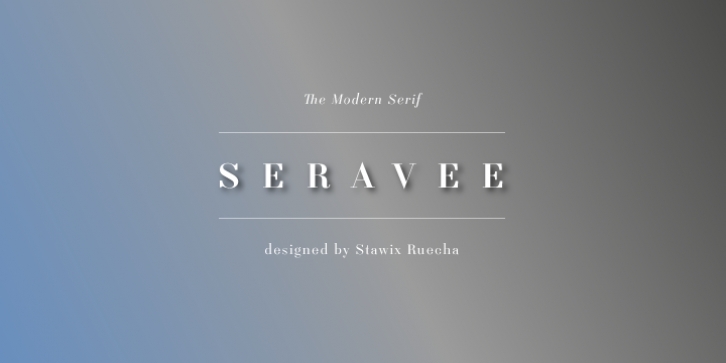
Seravee was inspired by the significant style of Modern (Didone) Typography. The bolder they become, the more exquisite and stylish along with excellent legible at the same time.
Designed by Stawix Ruecha, Bangkok based type designer. Rather than programing process, geometric forms as they were, each weight was well-crafted manually by hand as a result of humanistic sense. Through various weight ranges (Black, Bold, Regular and Light), to ensure that Seravee will perfectly cover all aspects of usability in every layout.